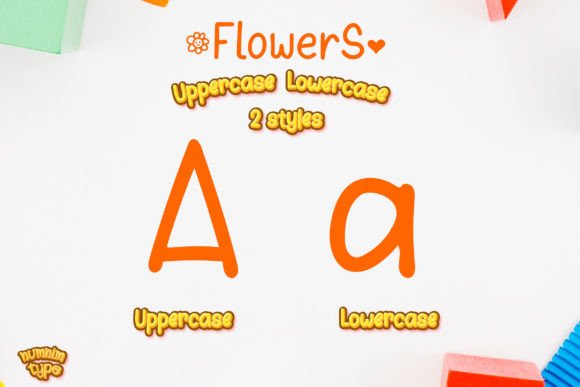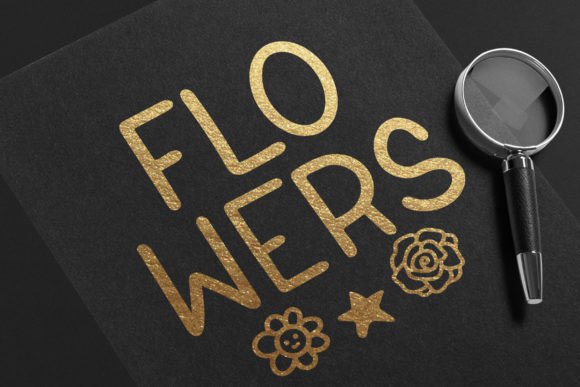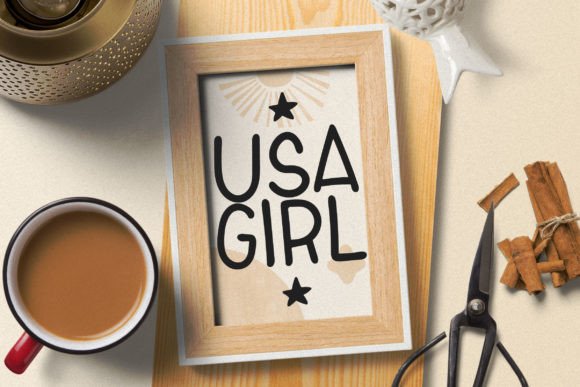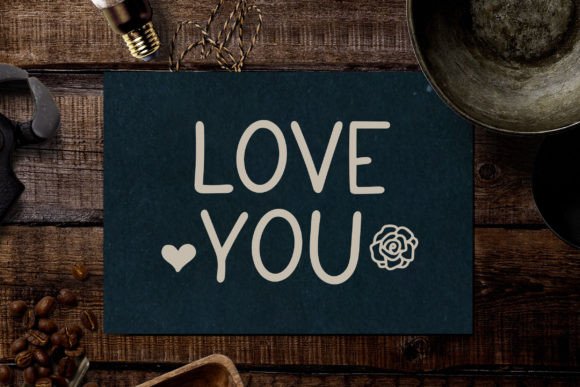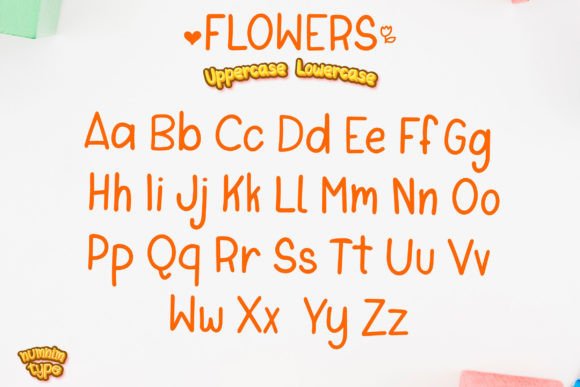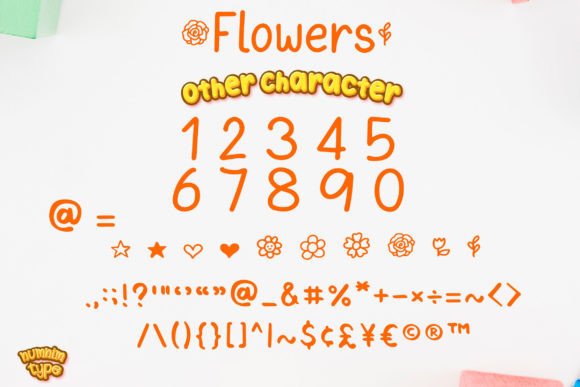
Introducing Flowers Font: A Vibrant and Joyful Handwritten Font
Are you looking for a font that can add a touch of fun and playfulness to your designs? Look no further than Flowers Font, a beautiful handwritten font that is perfect for a variety of creative projects. In this article, we’ll take a closer look at Flowers Font, its features, and how you can use it to elevate your designs.
What is Flowers Font?
Flowers Font is a handwritten font that exudes a vibrant and joyful feel. Its fun and playful characters make it the perfect font for a wide range of design projects, from stickers and mugs to t-shirts and ornaments. Whether you’re a designer, crafter, or DIY enthusiast, Flowers Font is sure to inspire your creativity.
Key Features of Flowers Font
So, what makes Flowers Font so special? Here are some of its key features:
- Handwritten Style: Flowers Font has a beautiful, handwritten style that adds a personal touch to your designs. The font’s characters are playful, fun, and full of personality.
- Versatile: Flowers Font is incredibly versatile, making it perfect for a wide range of design projects. Use it to create stickers, mugs, t-shirts, ornaments, event cards, and more!
How to Use Flowers Font
Using Flowers Font is easy, even if you’re new to font design. Here are some tips to get you started:
- Pairing with Other Fonts: Flowers Font pairs well with a variety of other fonts, including sans-serif fonts, script fonts, and more. Experiment with different pairings to find the perfect combination for your design.
- Customizing Your Design: Don’t be afraid to get creative with Flowers Font! Use it to add a pop of color to your design, or experiment with different textures and patterns.
Design Ideas Using Flowers Font
So, what can you create with Flowers Font? Here are some design ideas to get you started:
- Stickers: Use Flowers Font to create fun and colorful stickers for kids, parties, or special events.
- Mugs: Add a personal touch to your mugs with Flowers Font. Perfect for gifts or everyday use.
- T-Shirts: Create custom t-shirts with Flowers Font for a fun and playful look.
- Ornaments: Use Flowers Font to create beautiful and unique ornaments for your home or as gifts.
- Event Cards: Make your event cards stand out with Flowers Font. Perfect for weddings, birthdays, and more!